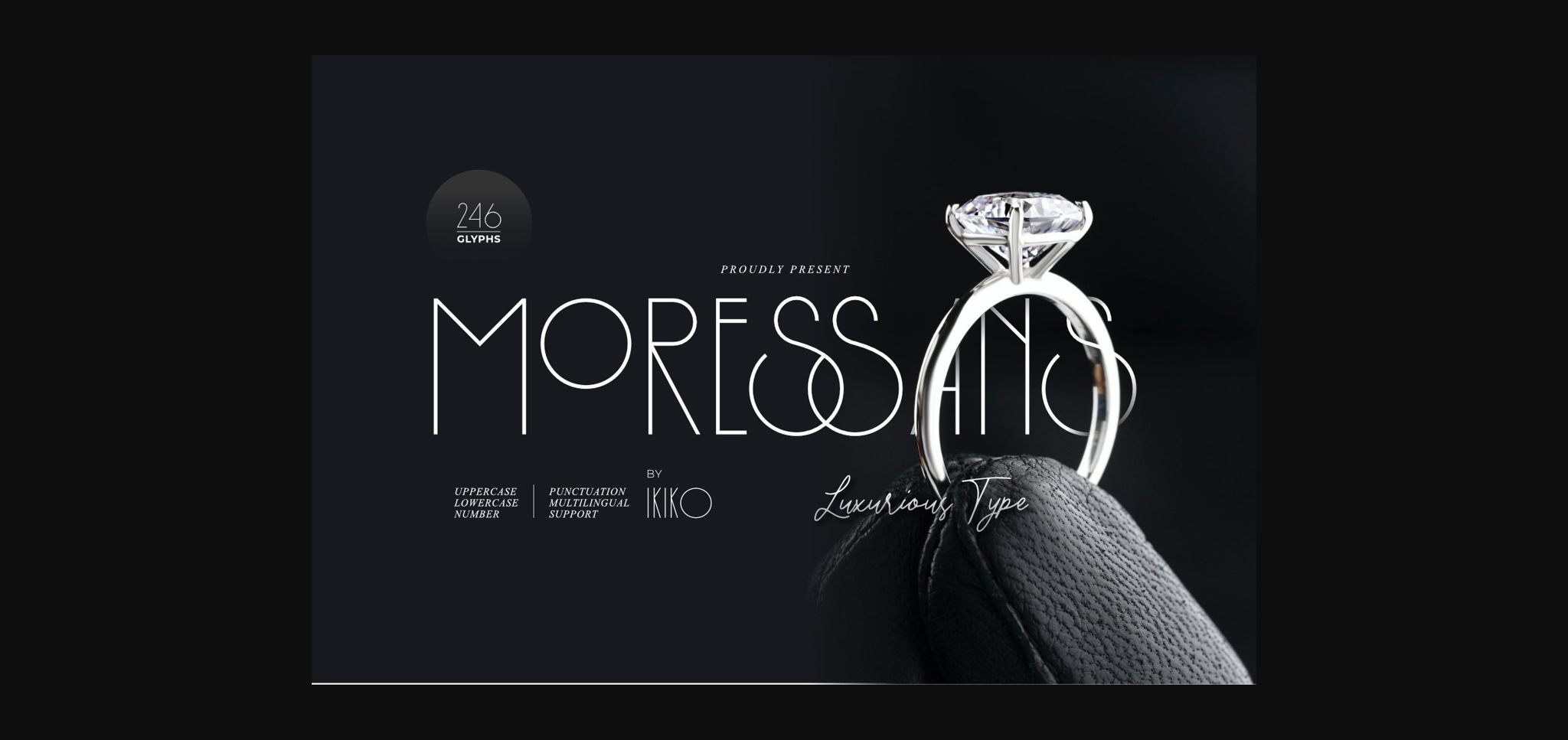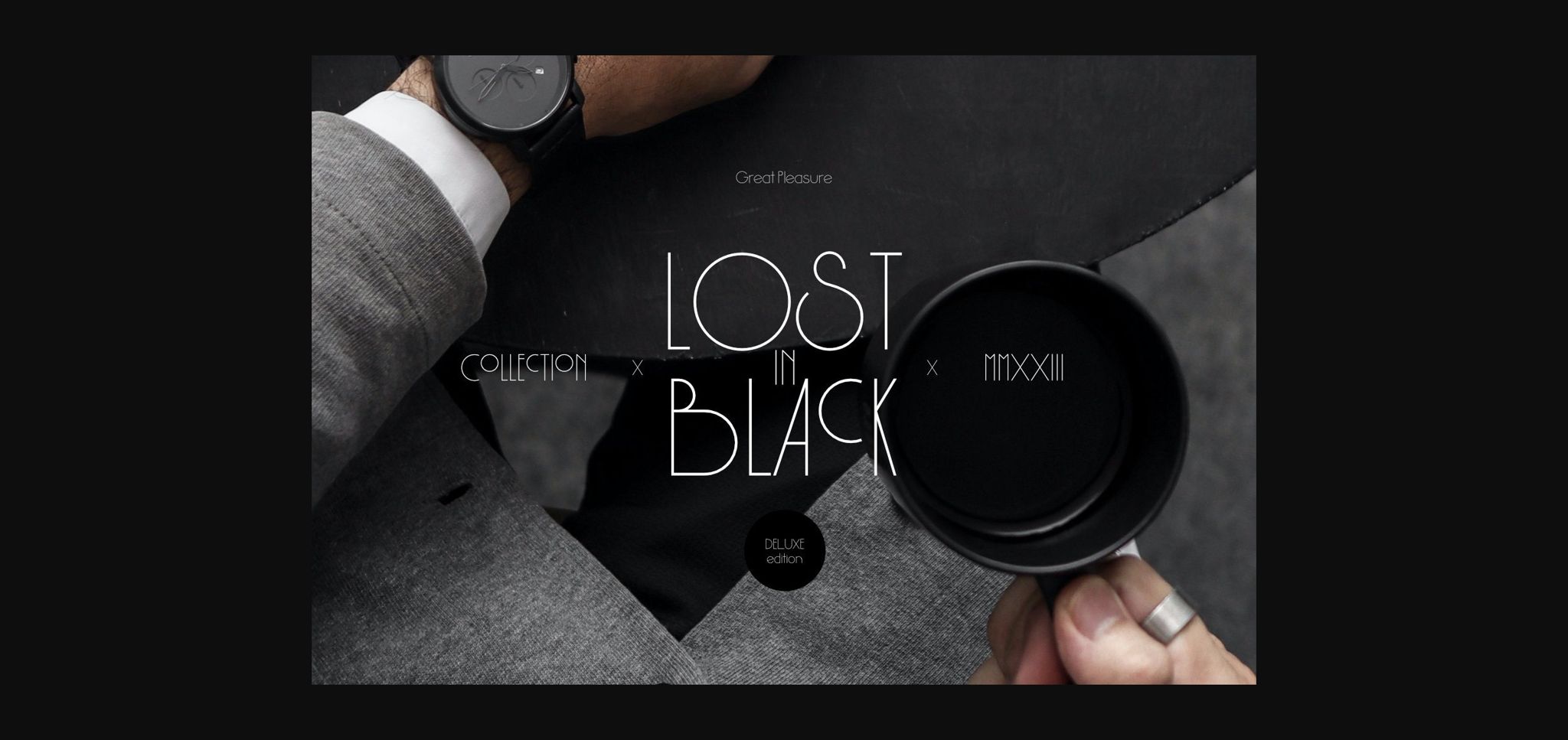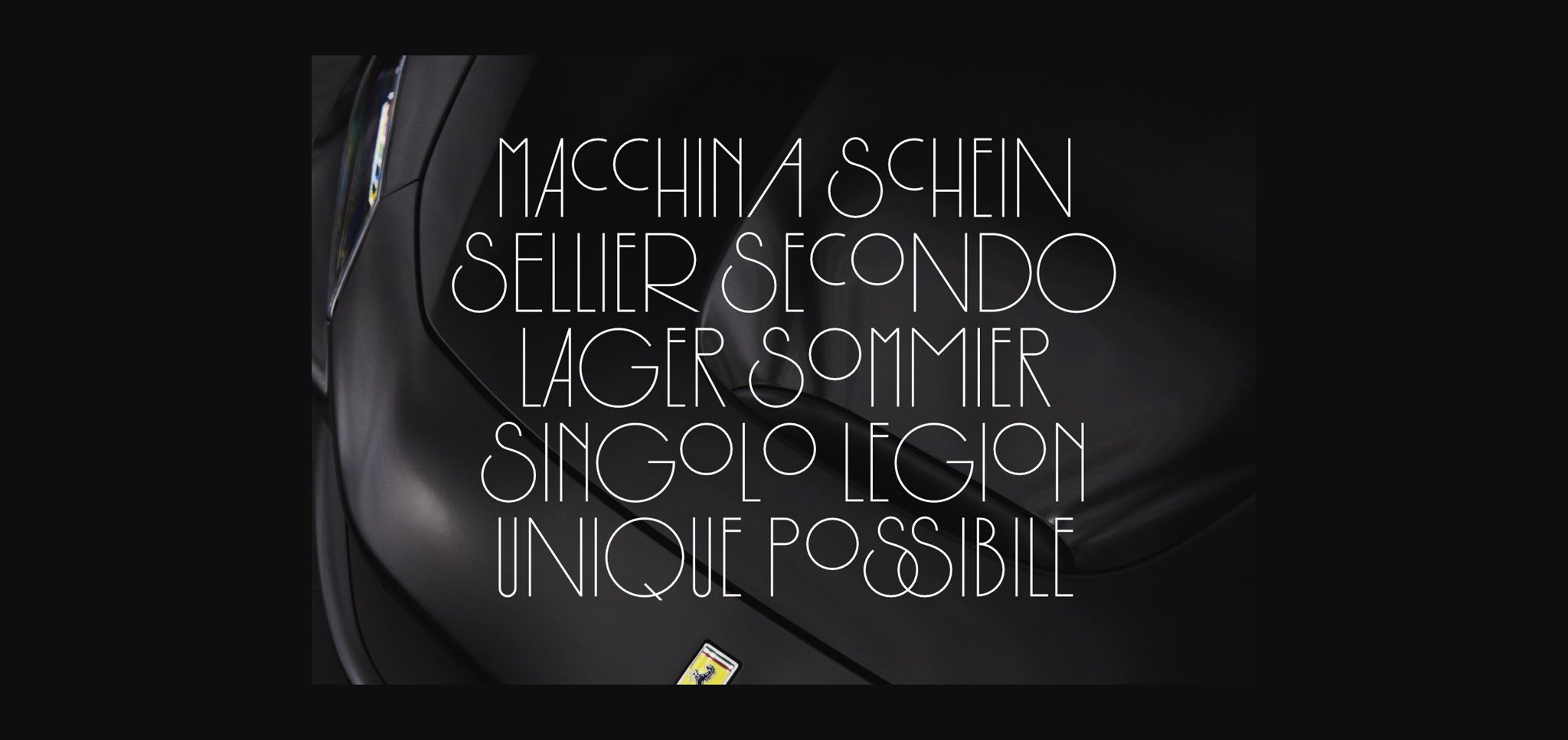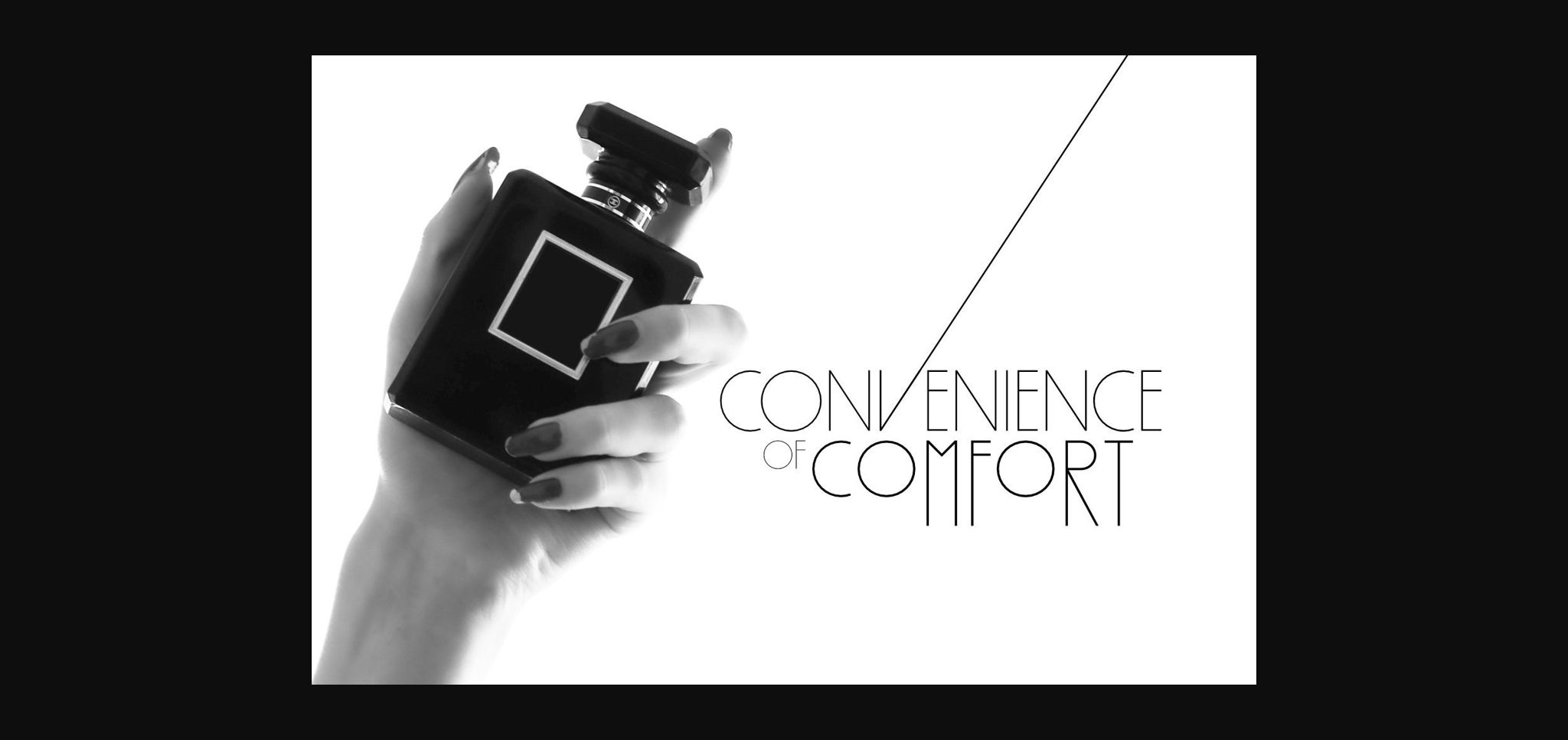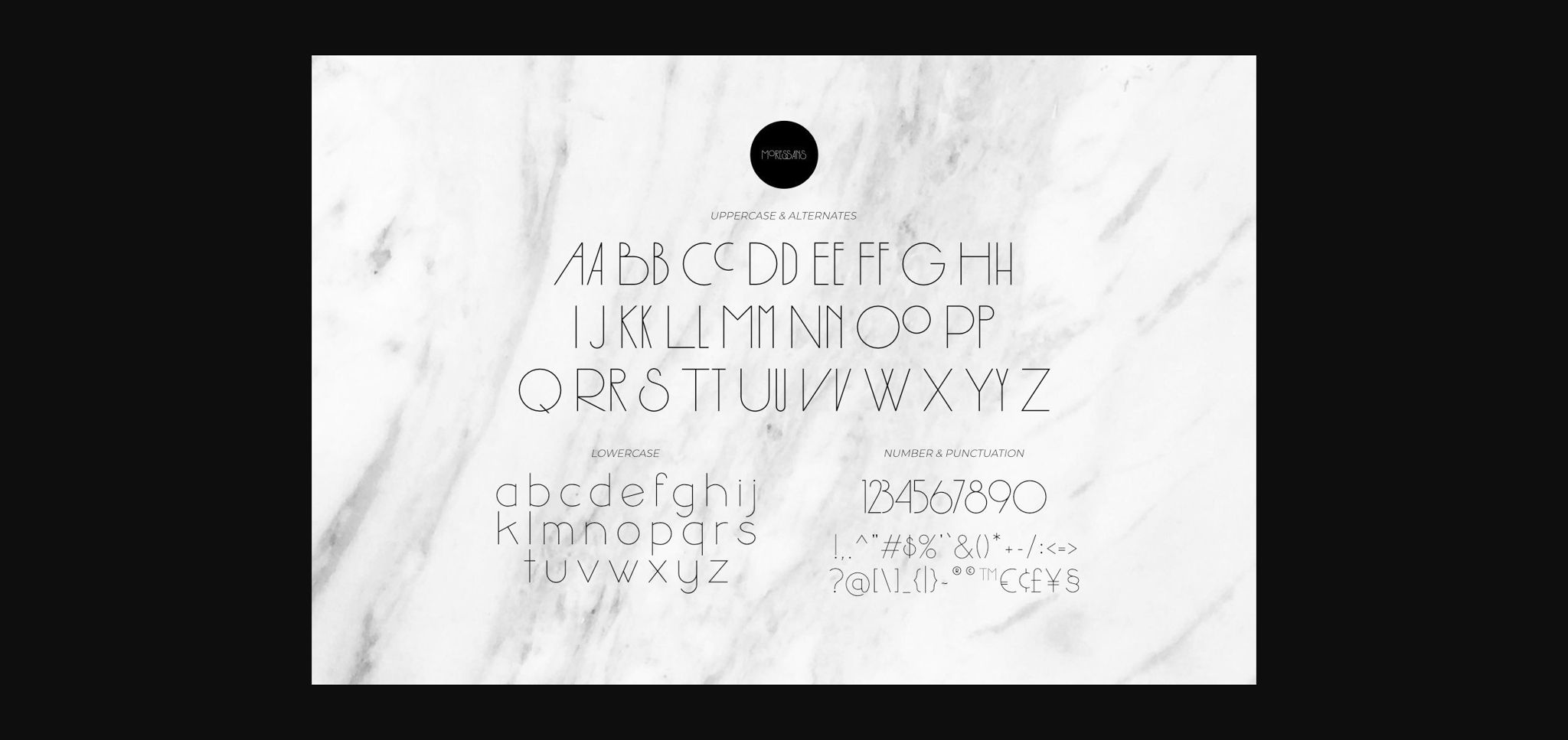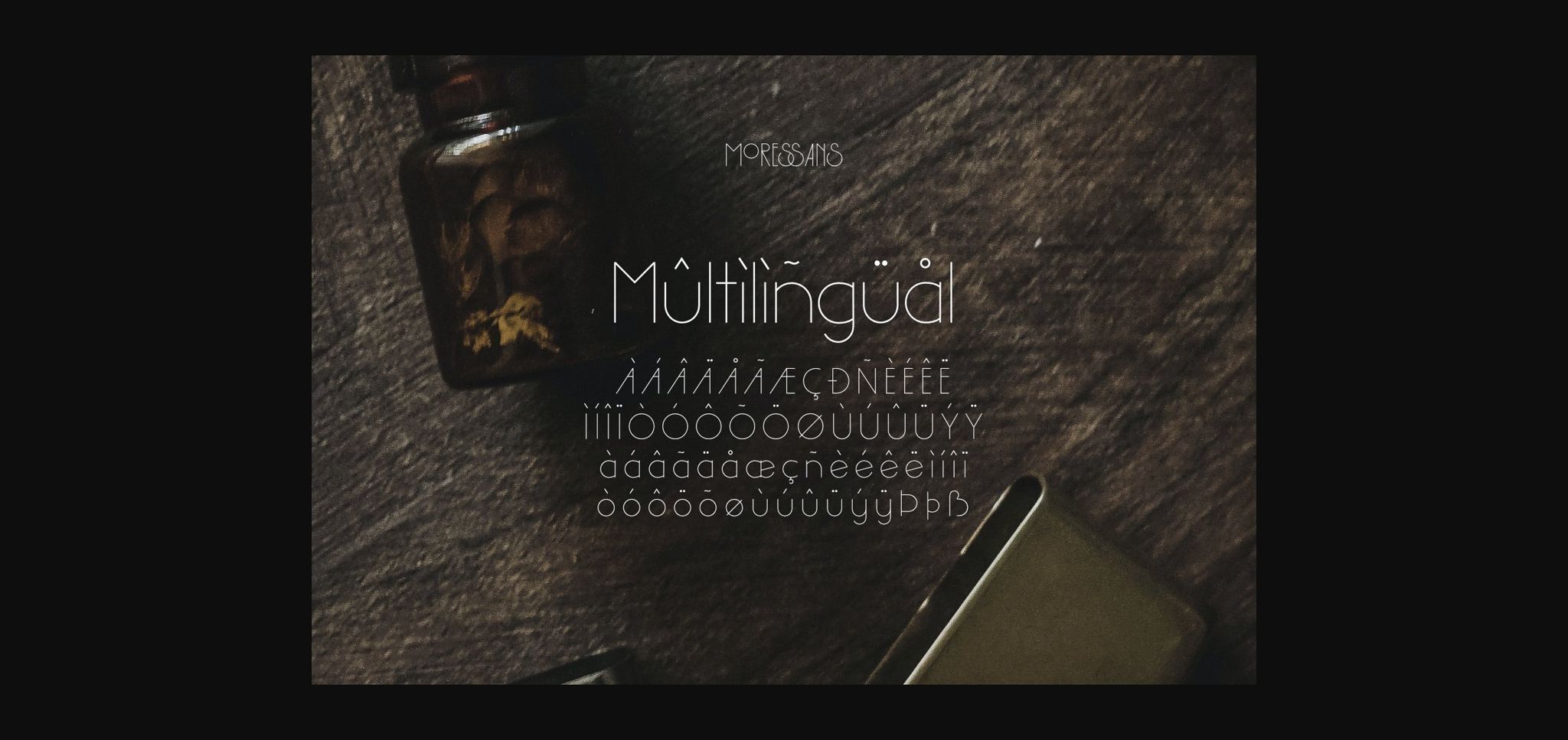
Moressans Font
About Moressans Font
Moressans is a sans serif typeface with a thin and rounded shape. Specially designed for luxury, elegant, feminine projects, this font is perfectly suitable for creating modern, chic designs.